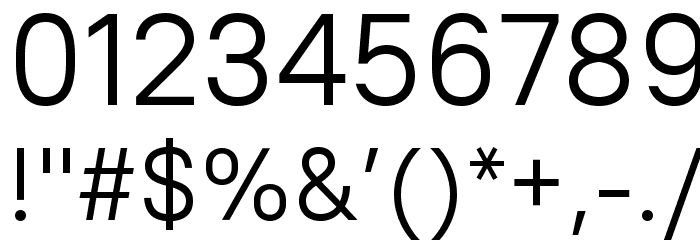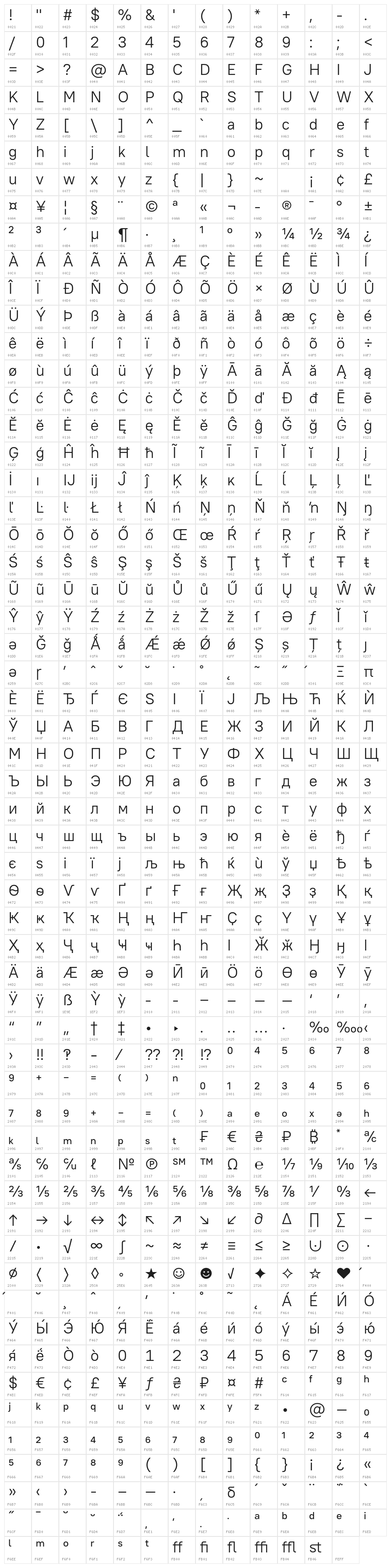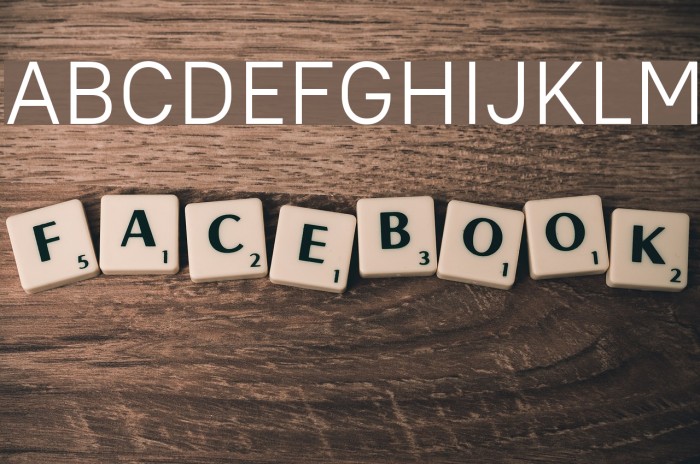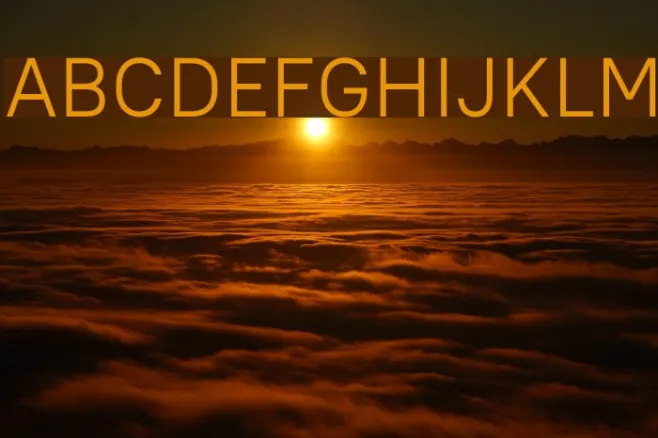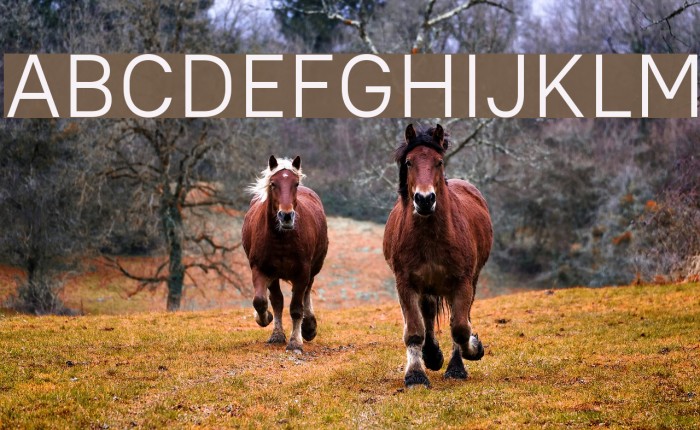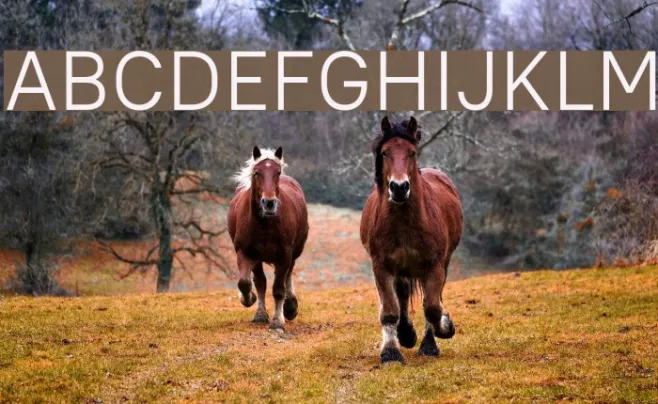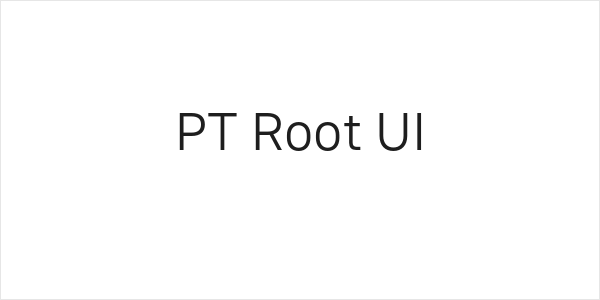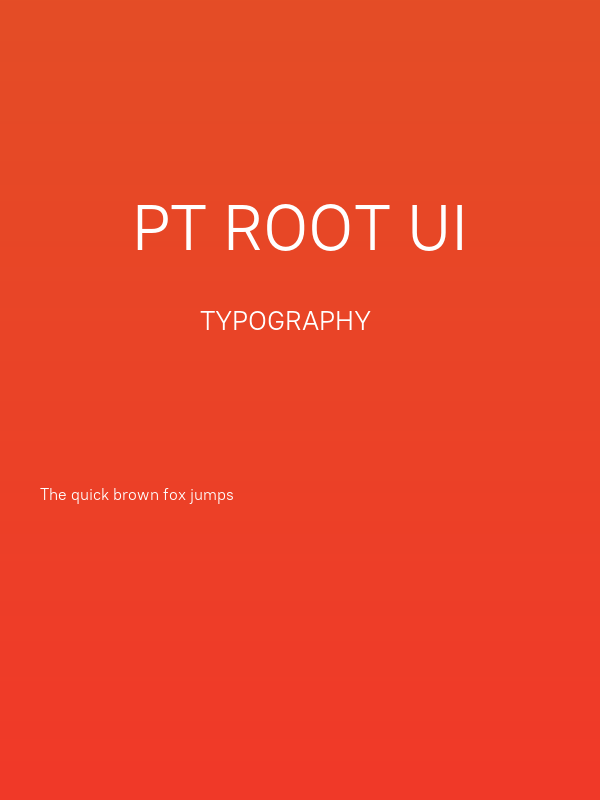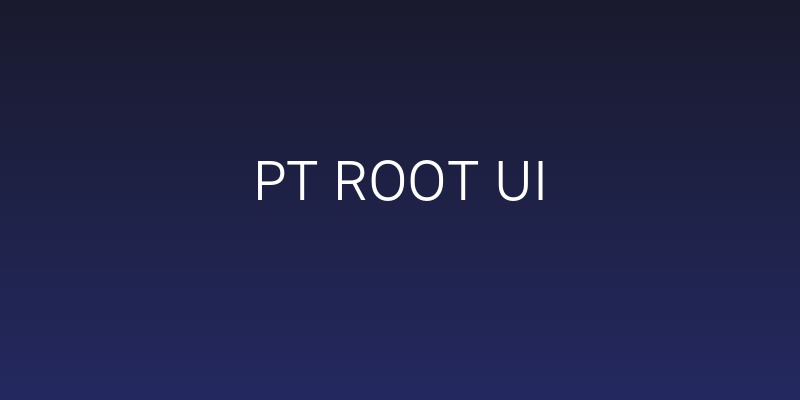
PT Root UI Font
PT Root UI Description
This font features a clean and modern sans-serif design, characterized by its geometric shapes and uniform stroke widths. The uppercase letters are bold and assertive, while the lowercase letters maintain a consistent and harmonious appearance. The numerals are clear and easily distinguishable, making them suitable for various applications. Special characters are well-defined, adding to the font's versatility. The overall design is minimalistic, focusing on readability and functionality, making it ideal for digital interfaces and print media.
| Proposed Projects | Ideal for user interfaces, digital content, branding, and print media where clarity and modern aesthetics are essential. |